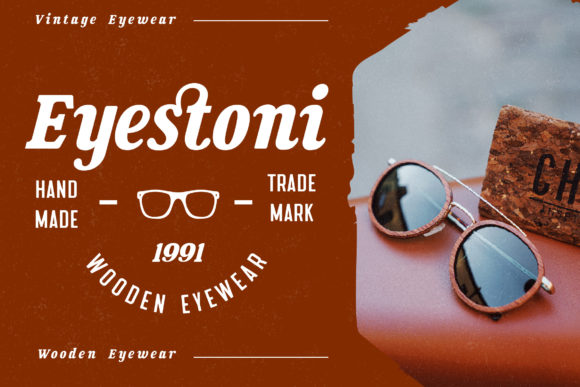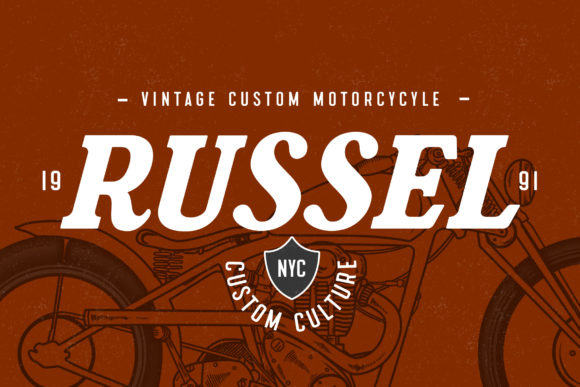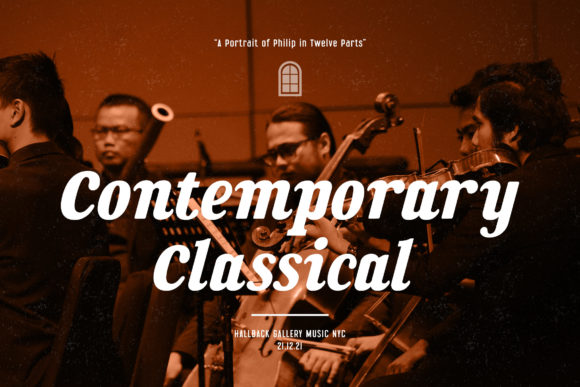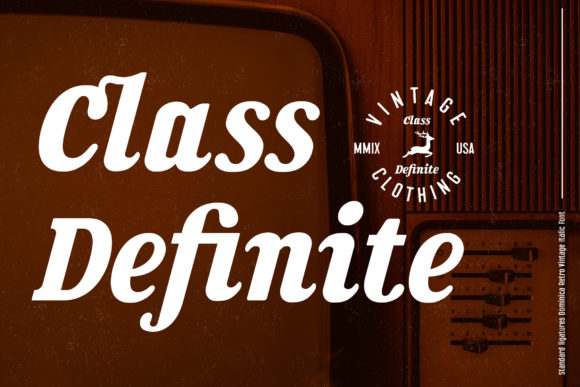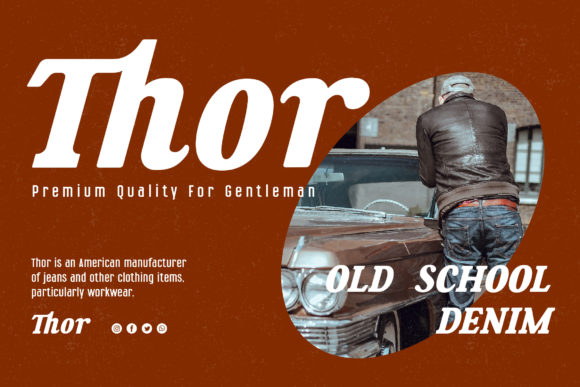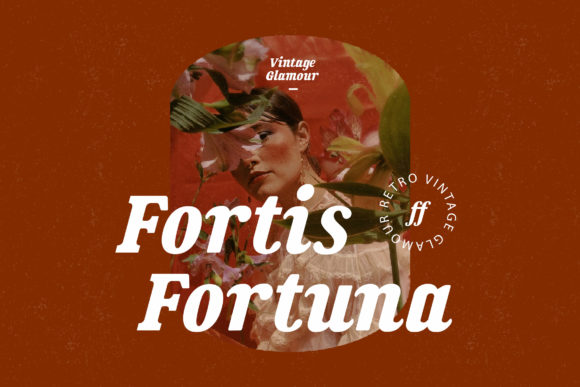
Introducing Dominica Font: A Timeless Retro Styled Display Font
Are you looking for a font that can add a touch of nostalgia and elegance to your design projects? Look no further than the Dominica Font. This classic, retro styled display font is a versatile script font that can be used in a wide range of applications, from greeting cards to headlines, and is guaranteed to add a distinct feel to your next project.
What is Dominica Font?
Dominica Font is a beautifully crafted script font that features a unique blend of classic and retro elements. Its elegant lettering and flowing curves make it perfect for designs that require a touch of sophistication and glamour. The font is designed to be highly legible, making it suitable for use in a variety of contexts, from digital displays to print materials.
Key Features of Dominica Font
- Classic and Retro Style: Dominica Font features a timeless design that is reminiscent of classic retro fonts from the past. Its elegant lettering and flowing curves make it perfect for designs that require a touch of nostalgia and sophistication.
- Versatile: This font is incredibly versatile and can be used in a wide range of applications, from greeting cards to headlines, and even digital displays.
- Highly Legible: The font is designed to be highly legible, making it suitable for use in a variety of contexts, from digital displays to print materials.
- Distinct Feel: Dominica Font is guaranteed to add a distinct feel to your next project, setting it apart from other designs.
Uses of Dominica Font
Dominica Font is a highly versatile font that can be used in a wide range of applications, including:
- Greeting Cards: Add a touch of elegance and sophistication to your greeting cards with Dominica Font.
- Headlines: Use Dominica Font to create eye-catching headlines that are sure to grab attention.
- Digital Displays: The font is perfect for use in digital displays, such as website headers, social media graphics, and more.
- Print Materials: Use Dominica Font in print materials, such as brochures, flyers, and posters, to add a touch of class and sophistication.
Why Choose Dominica Font?
There are many reasons why you should choose Dominica Font for your next design project. Here are just a few:
- Unique and Distinctive: Dominica Font is a unique and distinctive font that is sure to set your design apart from others.
- Elegant and Sophisticated: The font features an elegant and sophisticated design that is perfect for designs that require a touch of glamour and class.
- Highly Versatile: Dominica Font is incredibly versatile and can be used in a wide range of applications.
- Easy to Read: The font is highly legible, making it easy to read in a variety of contexts.
Tips for Using Dominica Font
Here are a few tips for using Dominica Font in your design projects:
- Use it Sparingly: While Dominica Font is a beautiful font, it can be overwhelming if used too much. Use it sparingly to add a touch of elegance and sophistication to your design.
- Pair it with Other Fonts: Dominica Font pairs well with other fonts, such as sans-serif fonts. Experiment with different font combinations to find the perfect look for your design.
- Experiment with Colors: Dominica Font looks great in a variety of colors. Experiment with different colors to find the perfect look for your design.
Dominica Font is a classic, retro styled display font that is perfect for designers and crafters looking to add a touch of elegance and sophistication to their design projects. Its highly versatile design makes it suitable for use in a wide range of applications, from greeting cards to headlines, and is guaranteed to add a distinct feel to your next project.